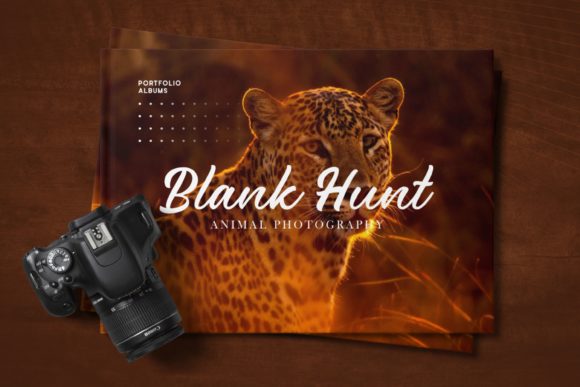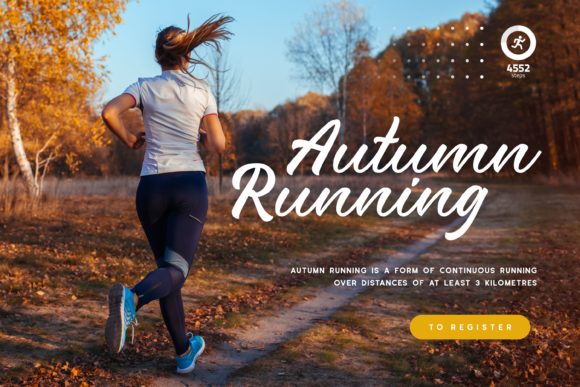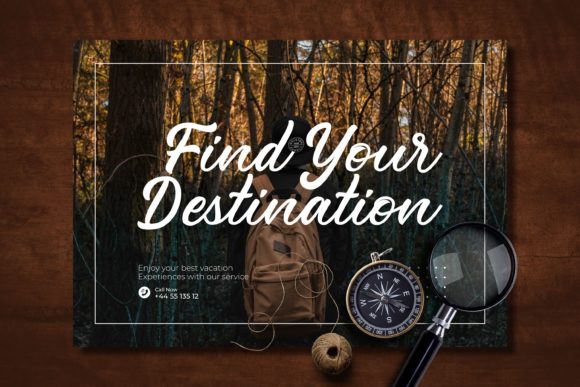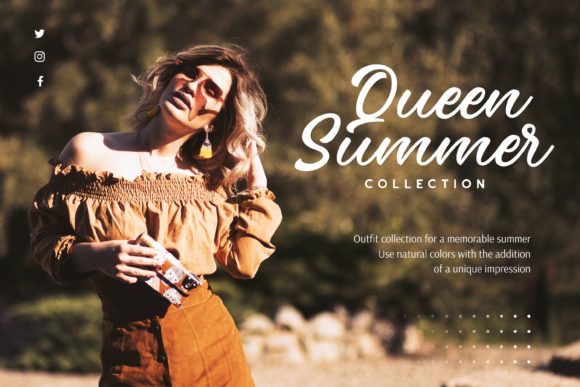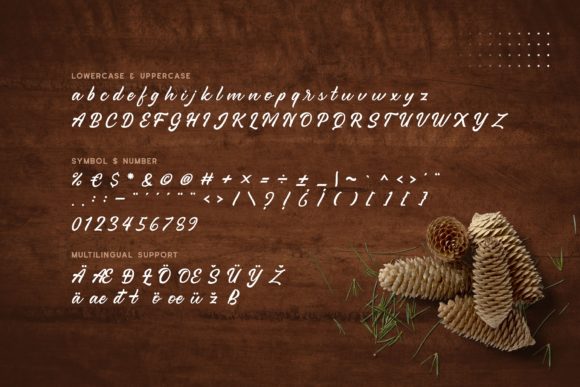
Introduction to Ameyasi Font
Ameyasi is a striking display font full of energy.
Fall in love with its unique style .
Key Features of Ameyasi Font
Why Choose Ameyasi Font?